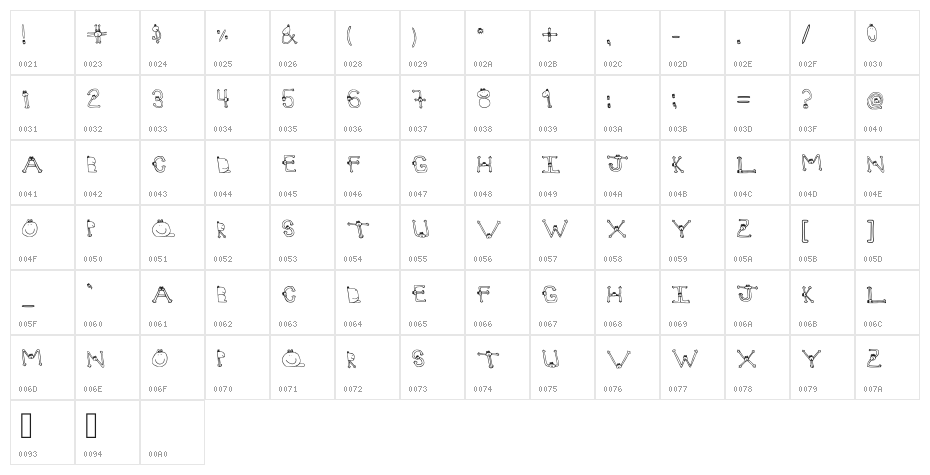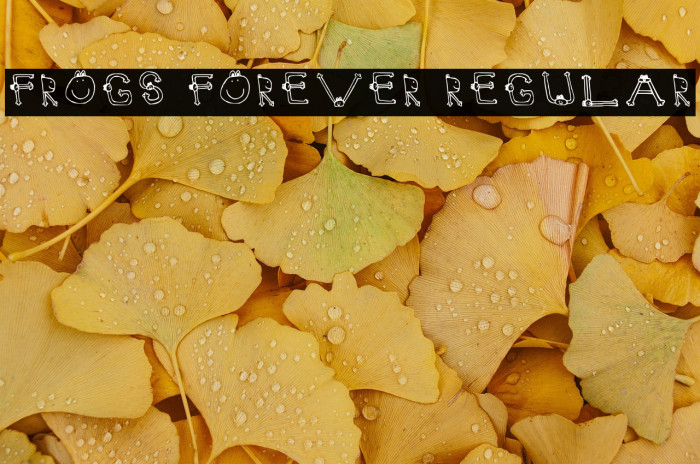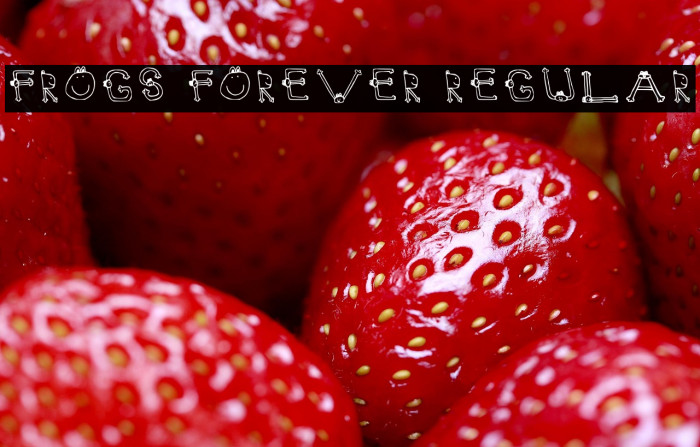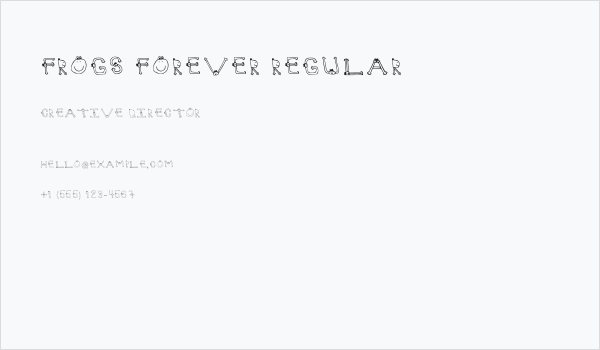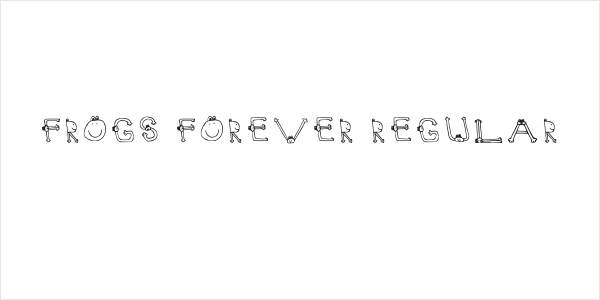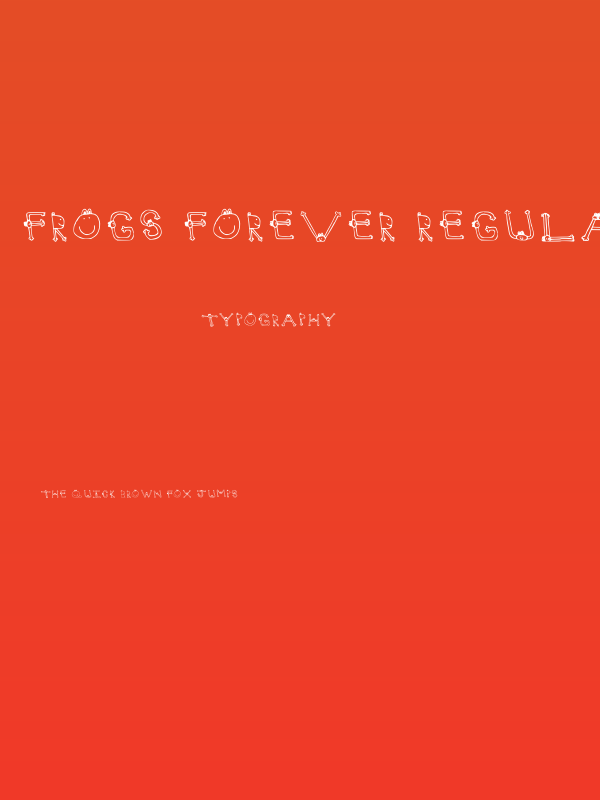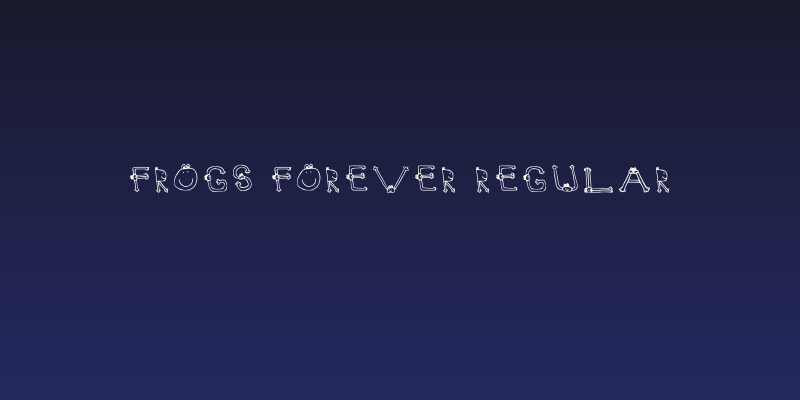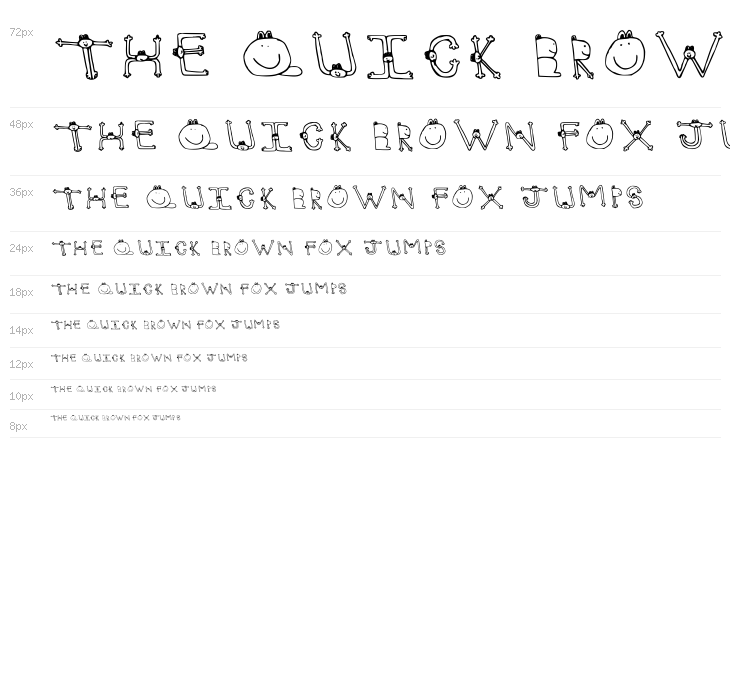
Frogs Forever Regular Font
Frogs Forever Regular Description
This playful and whimsical font features characters that are creatively designed with frog-like elements, giving each letter a unique personality. The letters are adorned with eyes, smiles, and other frog-inspired details, making them stand out with a fun and quirky appearance. The font maintains a consistent line weight throughout, with a hand-drawn style that adds to its charm. The numbers and special characters follow the same theme, incorporating similar playful elements. This font is perfect for projects that require a lighthearted and imaginative touch.
| Overall Style | Whimsical, Playful |
| Use Case | Logos, Posters, Children's materials |
| Proposed Projects | Ideal for children's books, playful branding, greeting cards, and creative posters. |